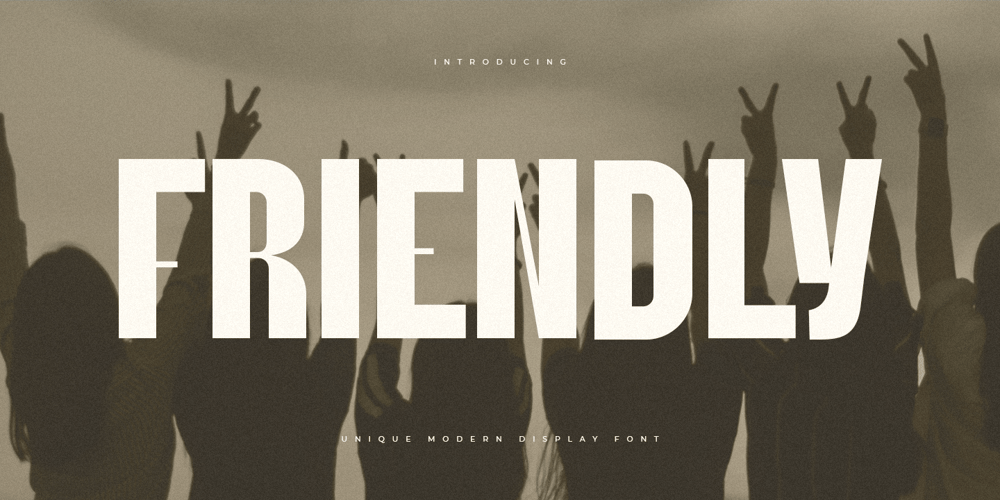
Friendly Font Family was designed by Zamroni Hamzah and published by Sensatype Studio. Friendly contains 2 styles and family package options. Brother is a High-Contrast font that we created special for elegant, luxury, modern, wedding, branding needs, font that you can combine to get any variations and unique shapes easily just in seconds with choose alternates of them.What’s Included: Character set A-Z Normal & Italic Style Numerals & Punctuation Accented Characters (West Europe) Stylistic Ligatures Works on PC & Mac Recommended using Adobe Illustrator or Adobe Photoshop. Wish you enjoy our font. ๐